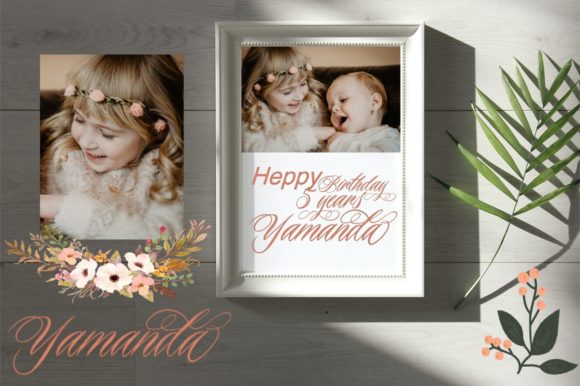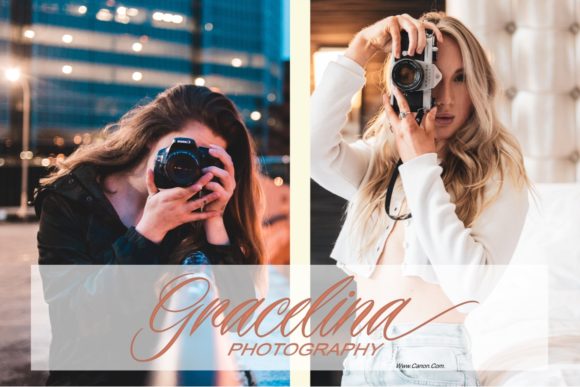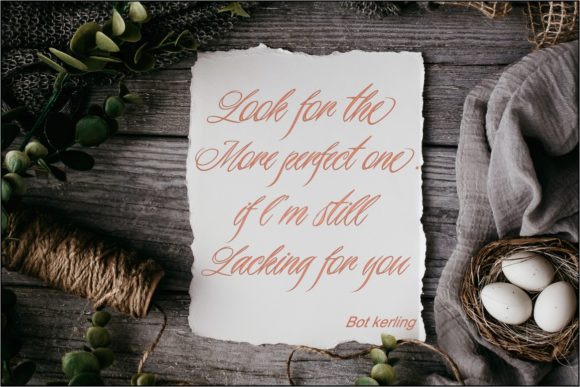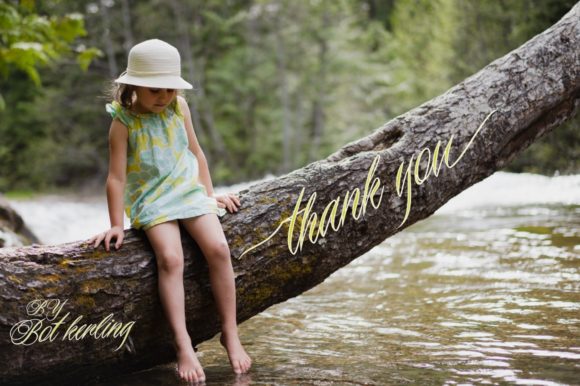
Butamah Font
Butamah is a beautiful handwritten font carefully created with a touch of elegance. This is a beautiful combination of timeless elegance and authentic calligraphy. It features an incredibly classic style, while still keeping a friendly feel. Butamah is the perfect font for making original and outstanding designs.
This font is PUA encoded which means you can access all of the great glyphs and swashes with ease! It also features a wealth of special features including alternate glyphs and ligatures.